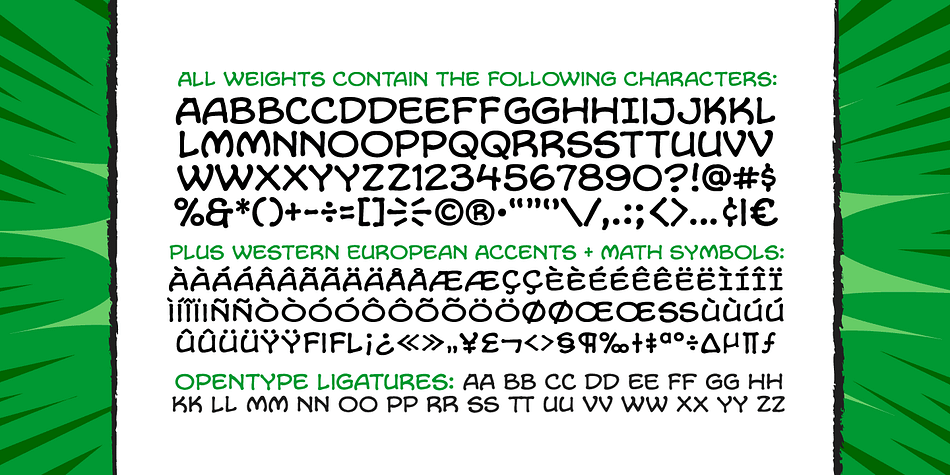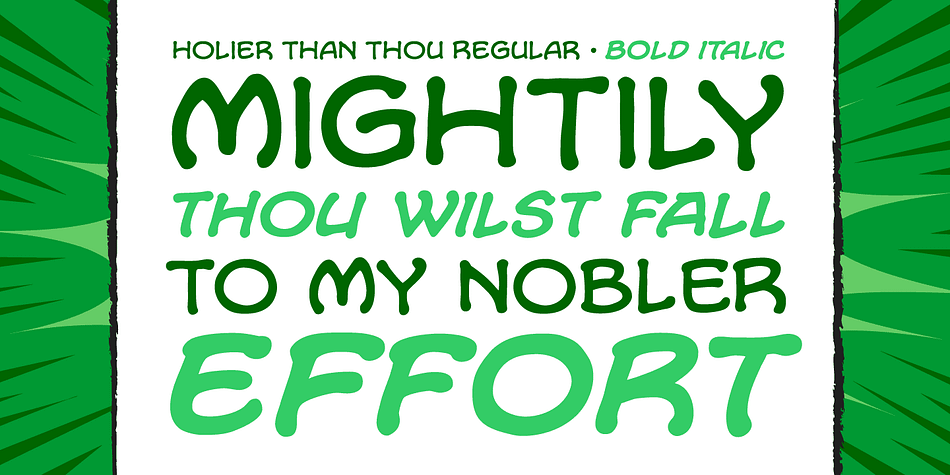
Designed by John Roshell, Holier Than Thou is a comic font family. This typeface has two styles and was published by Comicraft.
Look well, Fontlovers, we wouldst have words with thee! By Odin’s beard, let the naysayers beware, for ‘tis true, Thor doth speak—and shouldst speak—Mighty Words! Yay there shall be a “Thee” and a “Thou” and a “Thy” and a “Smite!” Verily, ‘tis understood that Elizabethan English dost suit the Gods of Asgard, mortals can never get enow. Attend these words—this sentence do we hereby pronounce; buy HolierthanThou for just $29, or $49 if thou dost also desire Alchemite!